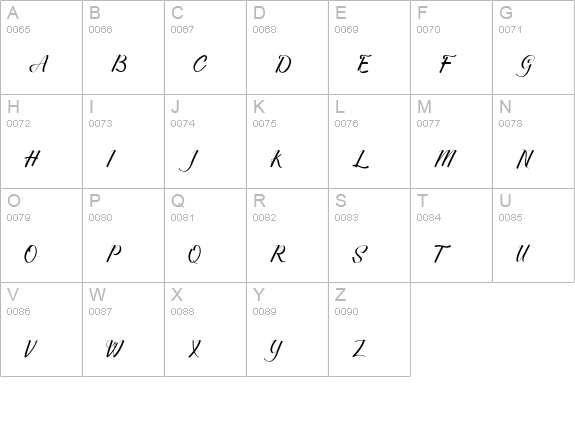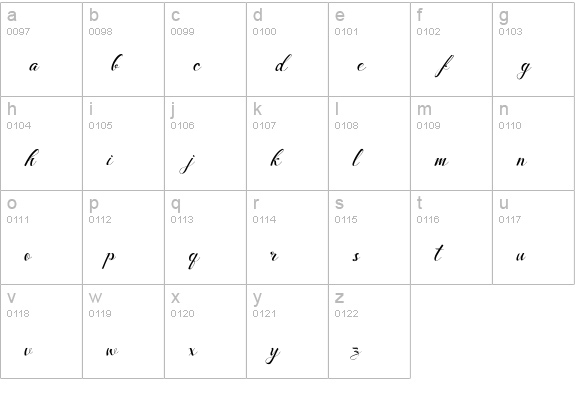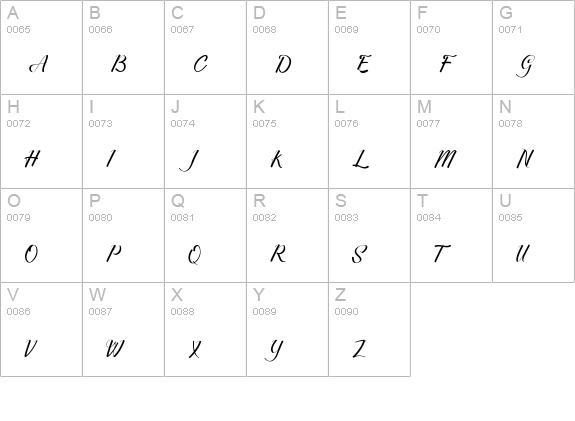
Merthy Script Font Details
Merthy Script is a free for personal use font in the Script category, designed by madeDeduk. It has been downloaded 247 times and is available for Windows, Mac and Linux.
Merthy Script font is a charming and elegant typeface that captures the essence of handwritten calligraphy with a modern twist. Its flowing lines and graceful curves make it perfect for adding a touch of sophistication to any design project. Whether you're creating invitations, greeting cards, logos, or branding materials, Merthy Script font will elevate your work to a whole new level.